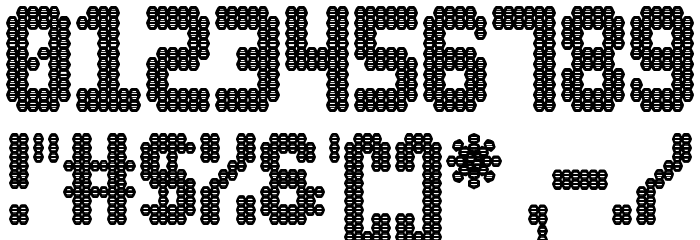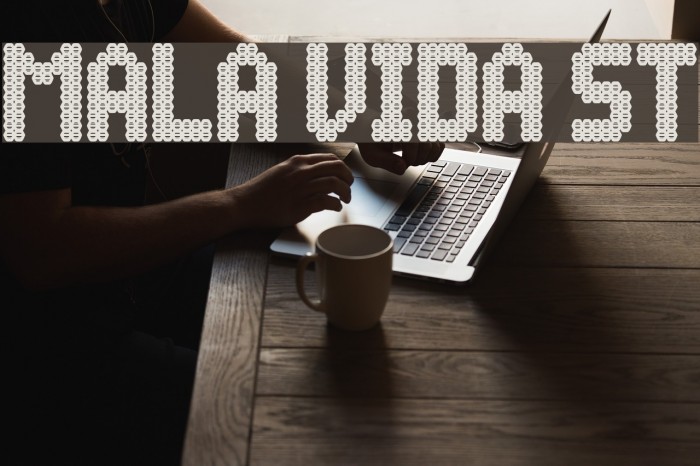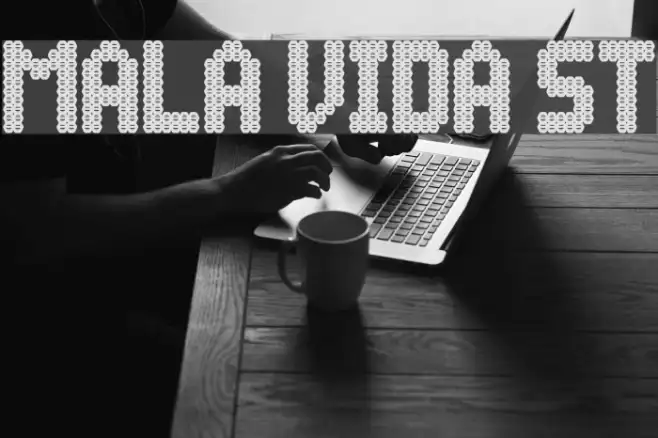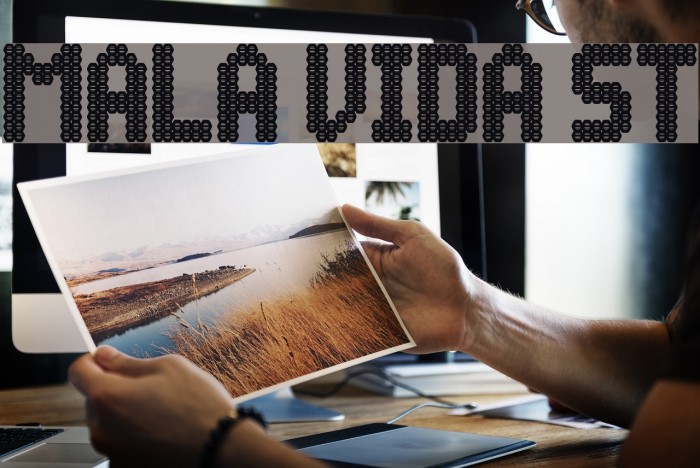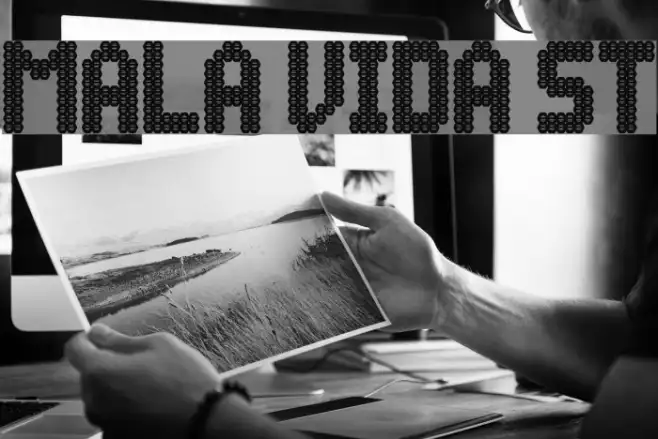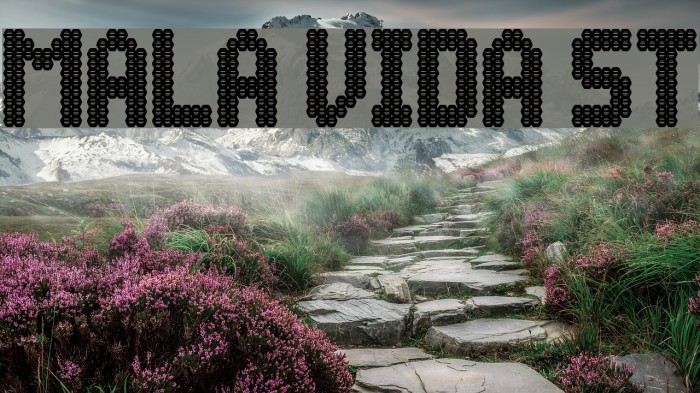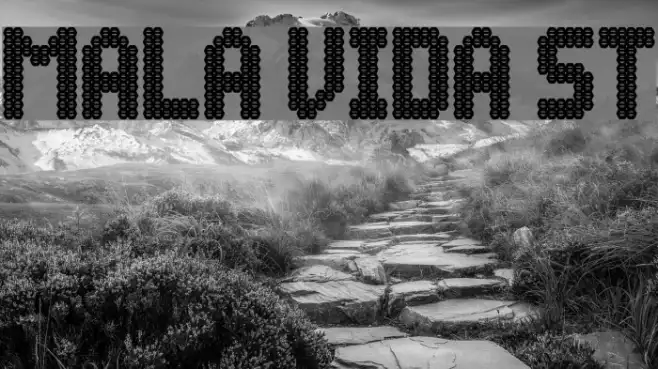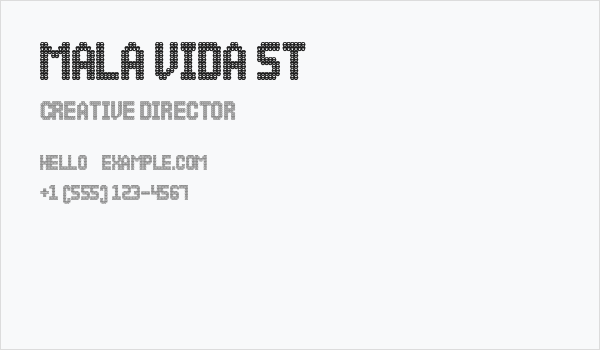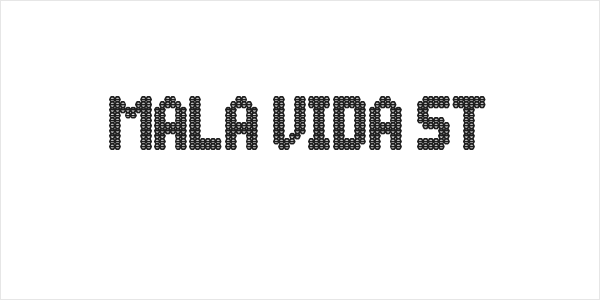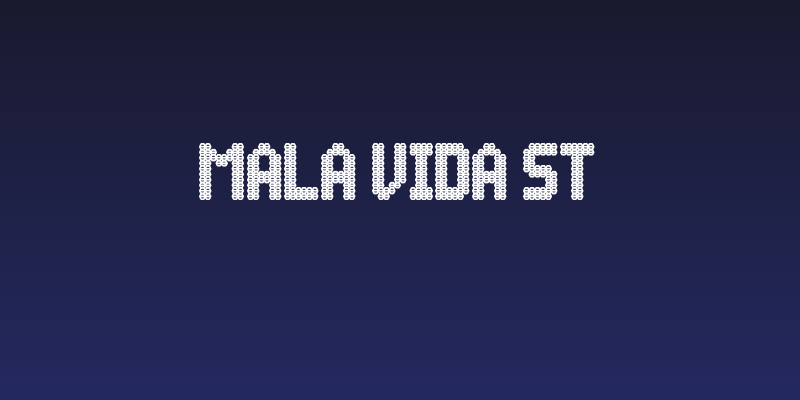
Mala Vida St Font
Mala Vida St Description
This font features a unique and playful design, characterized by its use of circular, bubble-like elements to form each character. The letters and numbers are constructed from a series of tightly packed circles, giving it a textured and three-dimensional appearance. This style creates a bold and eye-catching effect, making it ideal for creative and informal applications. The font maintains a consistent weight throughout, with each character having a uniform width and height. The spacing between characters is tight, enhancing the compact and cohesive look. The overall style is decorative and modern, suitable for projects that require a fun and engaging visual impact.